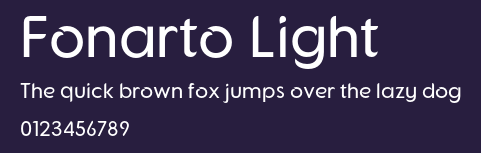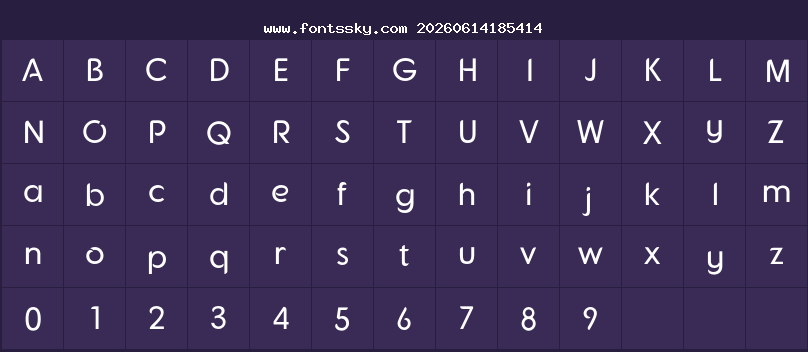
Fonarto Light Preview
• Font Name: Fonarto Light
• Designer: Arwan Sutanto
• Manufacturer: Locomotype
About Fonarto Light.otf
Fonarto Light.otf is a modern, elegant sans-serif font designed for ultimate readability and visual harmony. Perfect for branding, headlines, web design, and print materials.